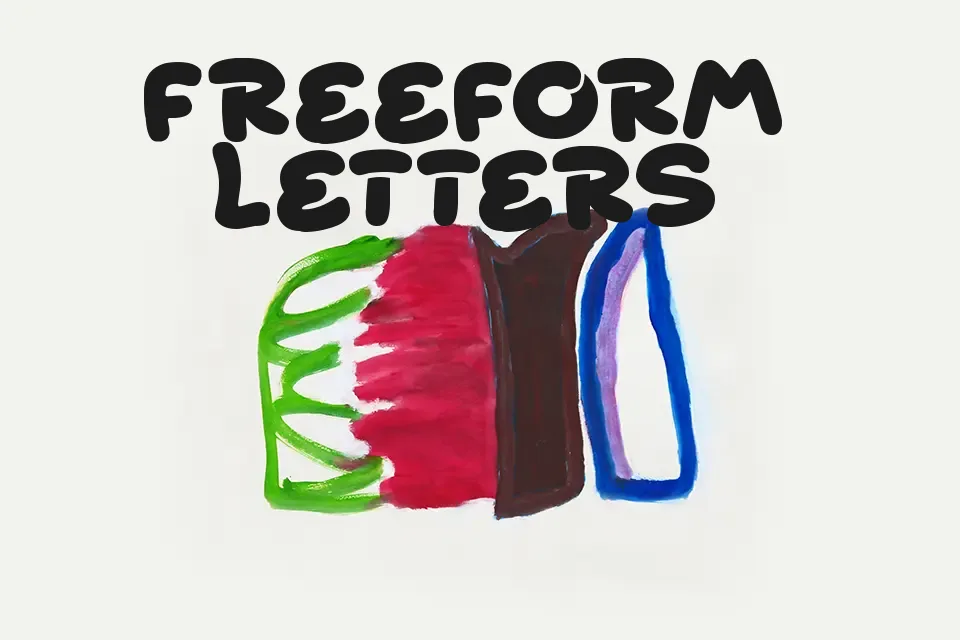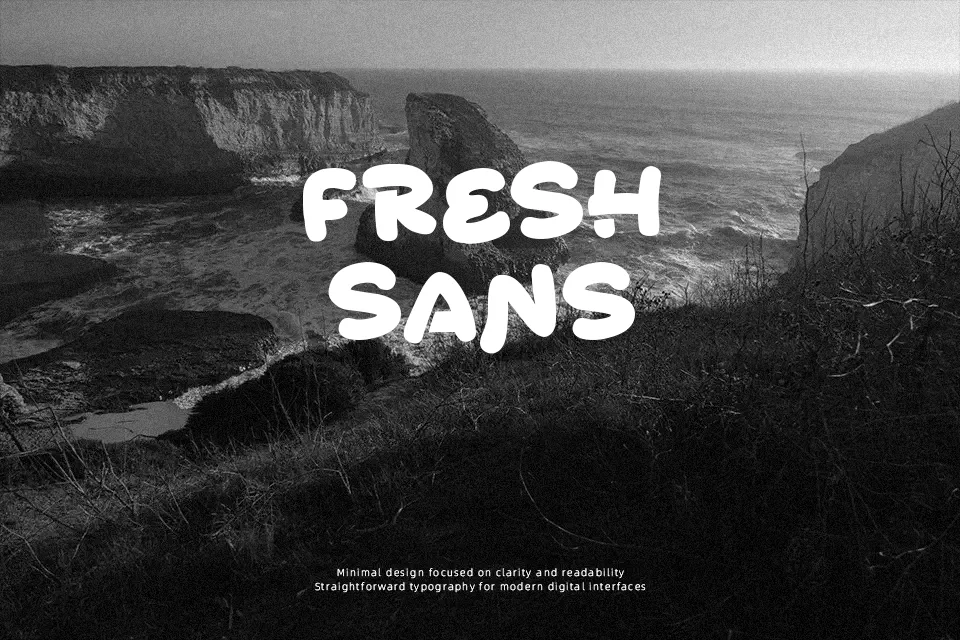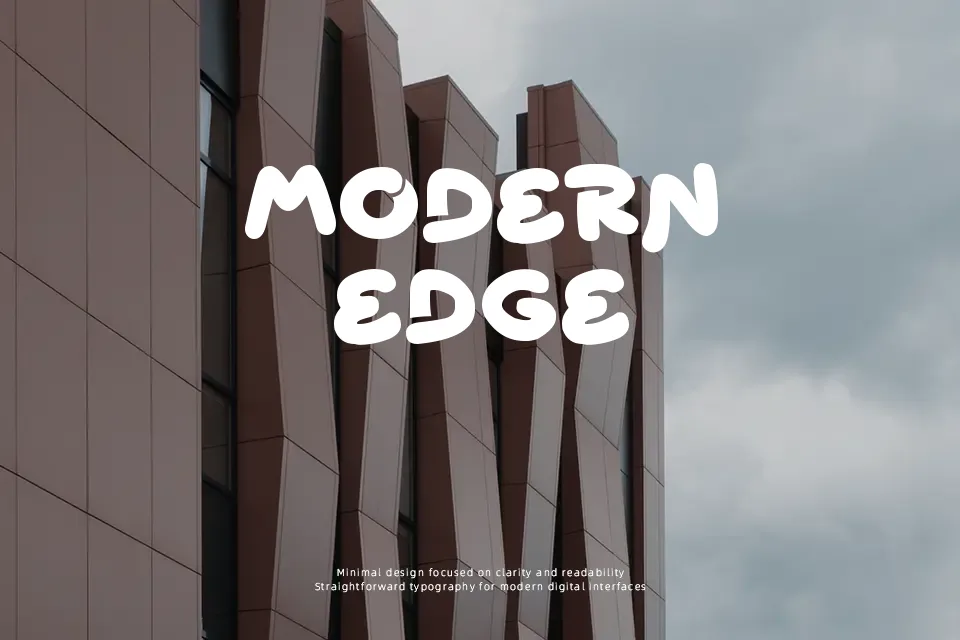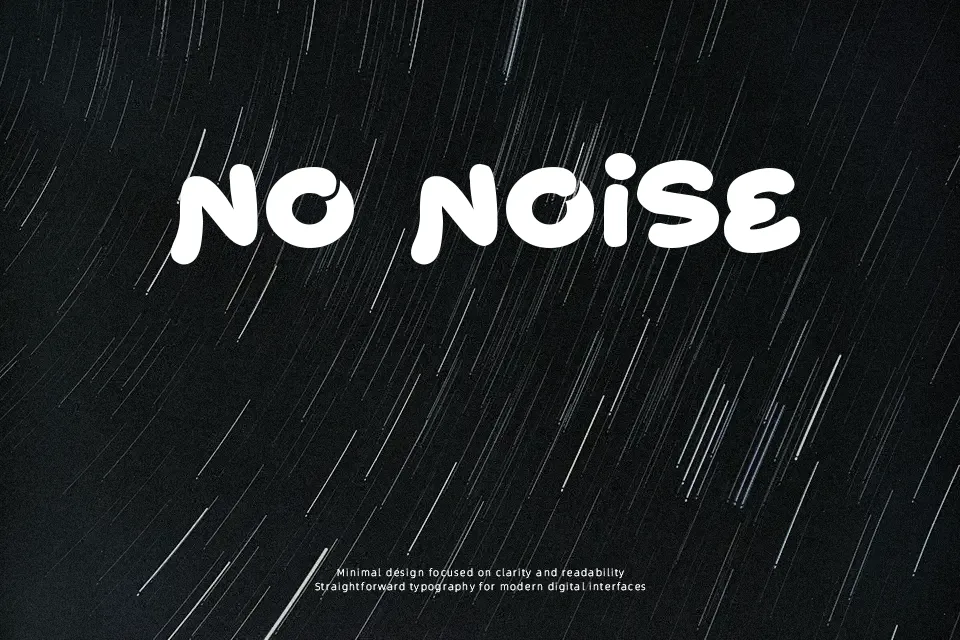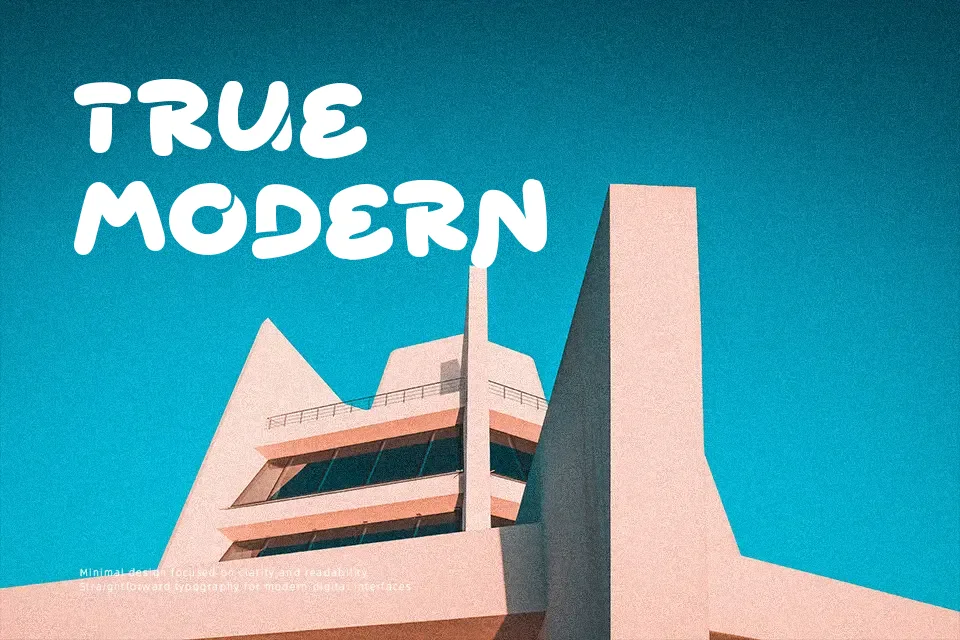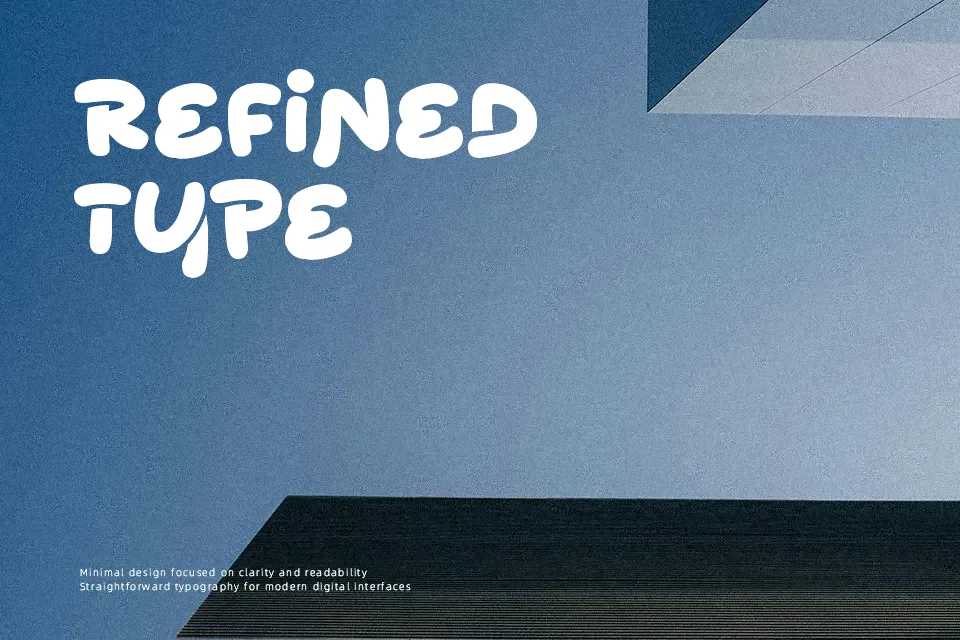
Bouncy Balloons Font
Designed by Hawtpixel
Bouncy Balloons Font features chunky, rounded letters that puff out like balloons, with loose vertical rhythm and generous counters that keep lines readable even at larger sizes. Its strokes feel inflated rather than sharp, giving the whole wordshape a casual, celebratory tone that leans decorative more than practical. The font works nicely for birthday posters, children’s event signage, playful product packaging, and social posts where you want a clear, friendly title that instantly signals fun. It is less convincing in long paragraphs or serious branding, where the exaggerated curves can become tiring and undermine a professional voice. If you already use bubble or cartoon display fonts, this one sits in the same family but feels a bit more airy and party-focused than comic-inspired styles.
kids party invitations
birthday posters and banners
playful social media graphics
children’s product packaging
long body text or paragraphs
formal corporate branding
serious editorial content
small UI labels or captions
Perfect for headline, kids, and packaging, with a creative and cartoon style.